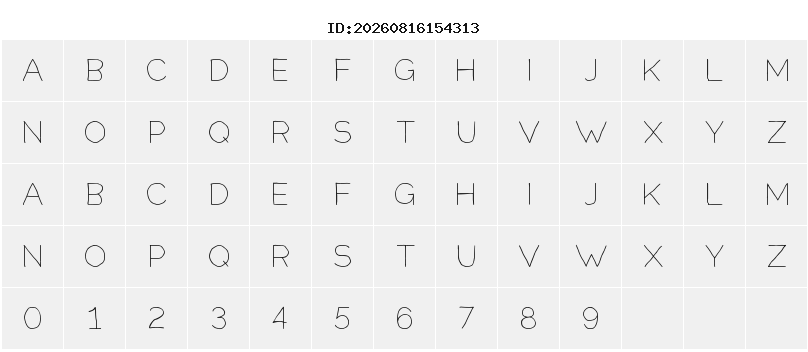
• Font Name: Springtime
• Designer: Denise Bentulan
Springtime.ttf is a modern, elegant sans-serif font designed for ultimate readability and visual harmony. Perfect for branding, headlines, web design, and print materials.